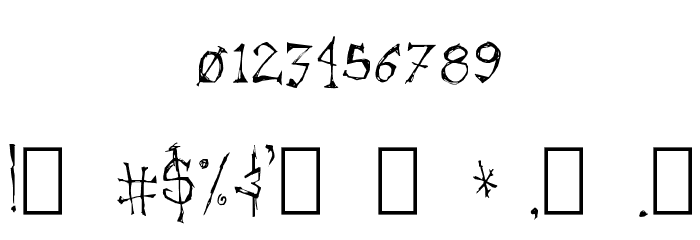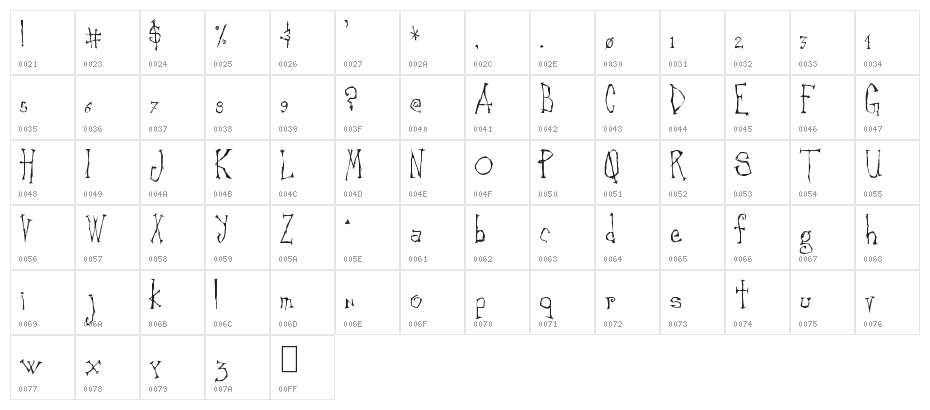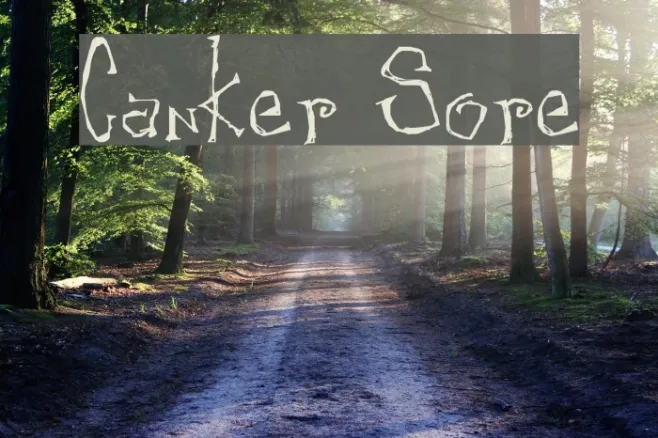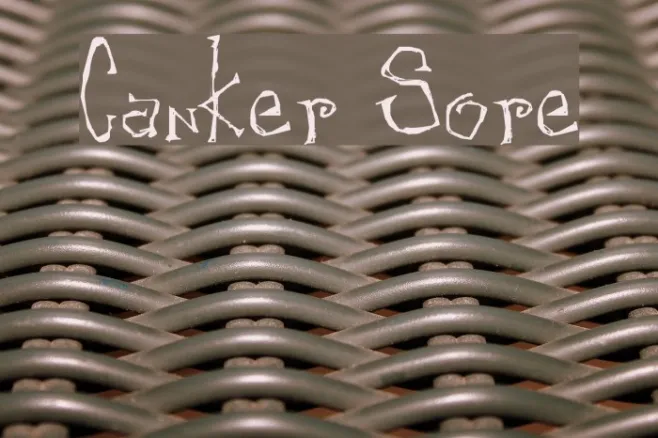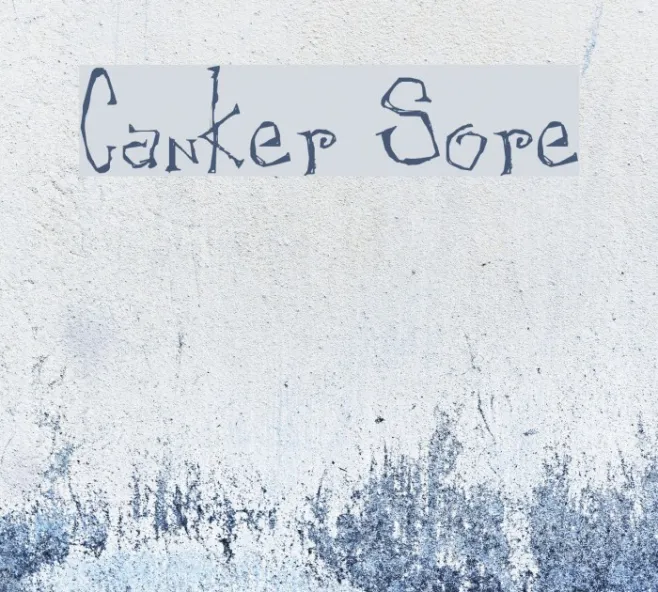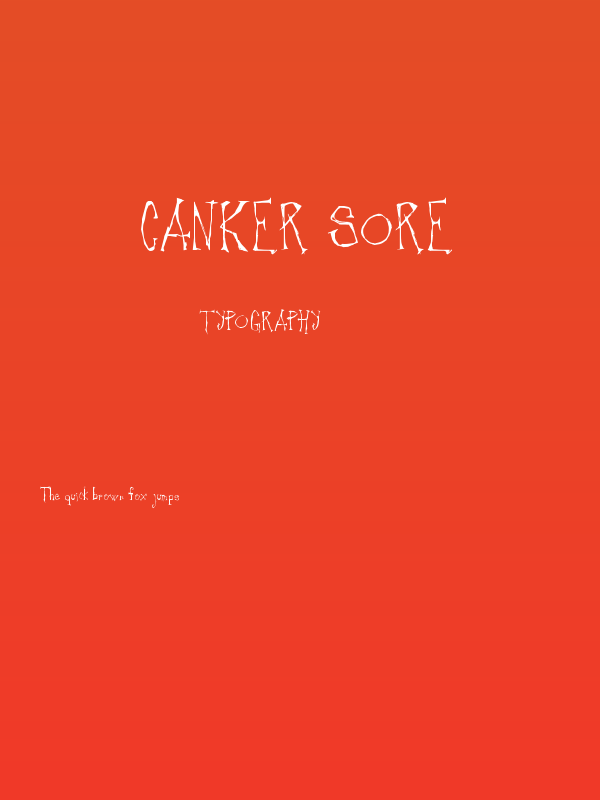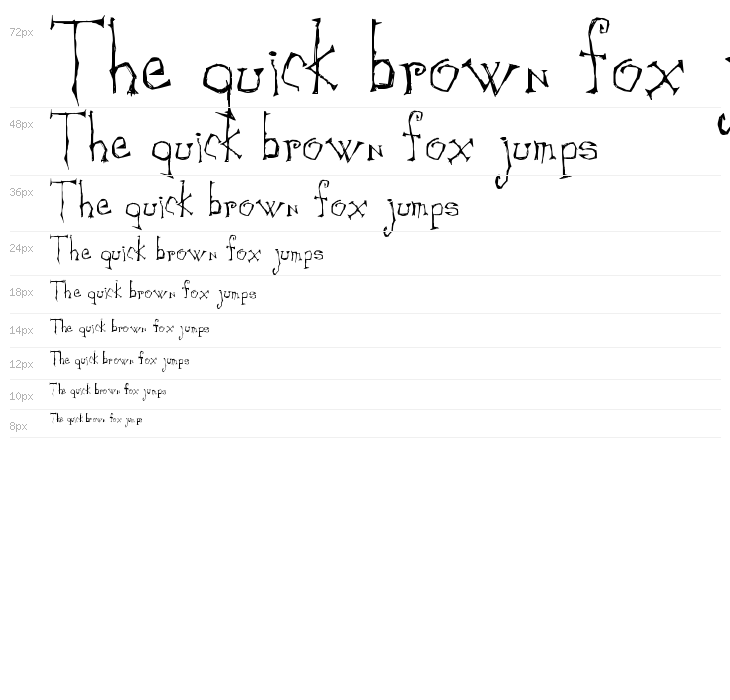
Canker Sore Font
This font features a unique, jagged style that resembles hand-drawn, thorny branches. The letters have an irregular, organic appearance, with uneven strokes and sharp edges that give it a raw, edgy feel. The uppercase and lowercase letters maintain this thorny aesthetic, creating a cohesive look across the alphabet. Numbers and special characters follow the same design, ensuring consistency throughout. The font's distinctive style makes it stand out, ideal for projects that require a bold, unconventional look.
A jagged, thorny font with an edgy, hand-drawn appearance.
- Font: Canker Sore
- Proposed Projects: Perfect for horror-themed designs, edgy posters, album covers, or any project needing a bold, unconventional look.
- Use Case: Headlines, Posters, Album Covers